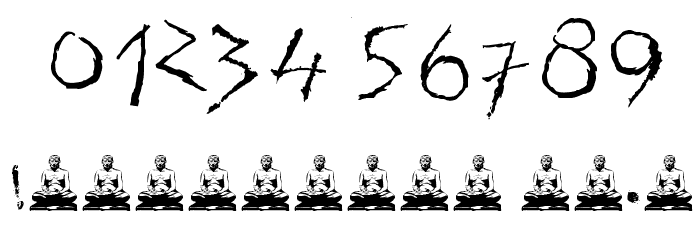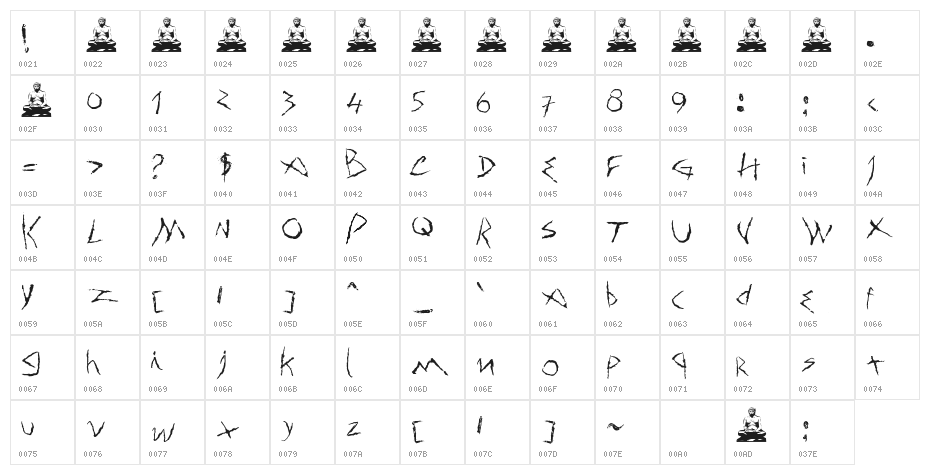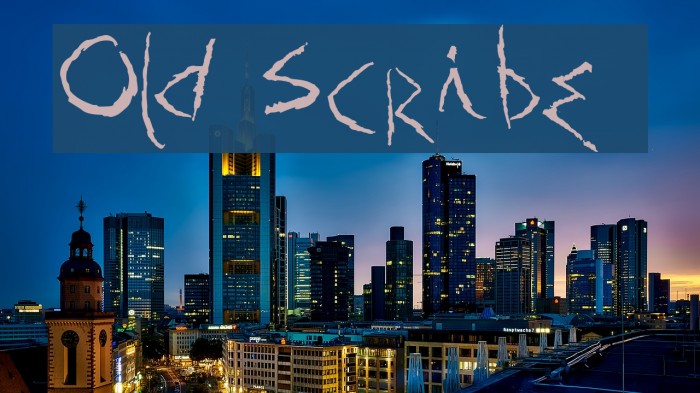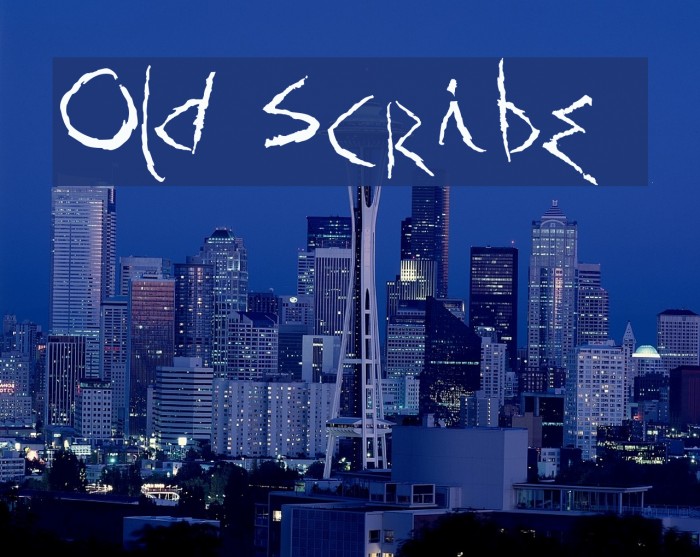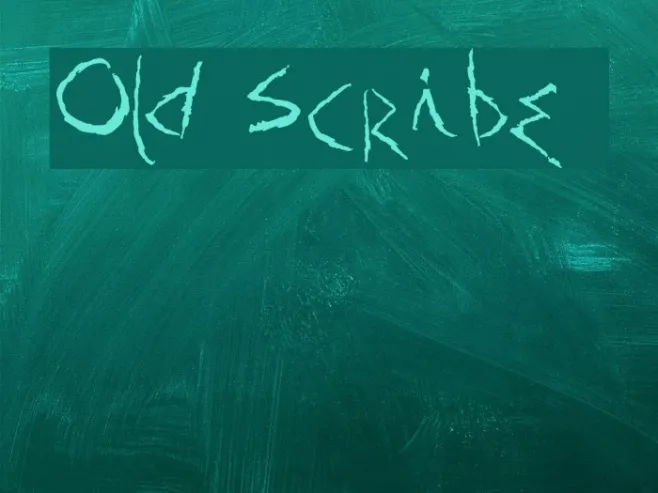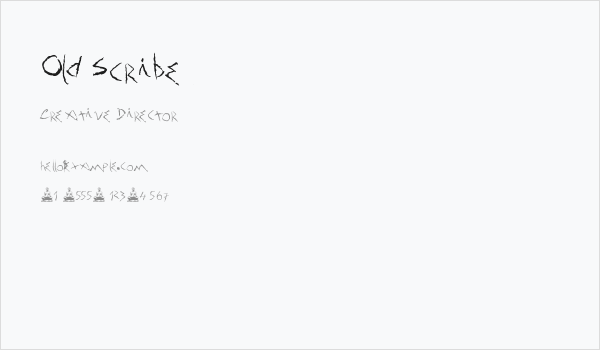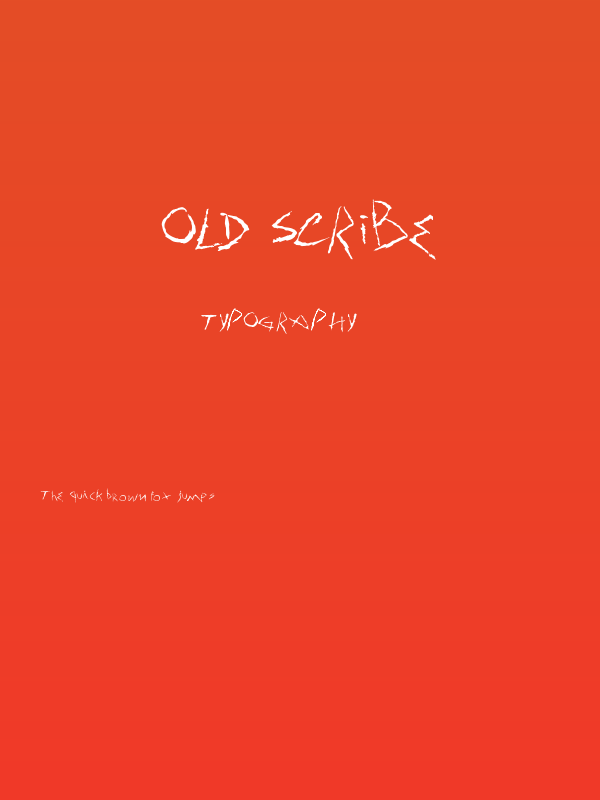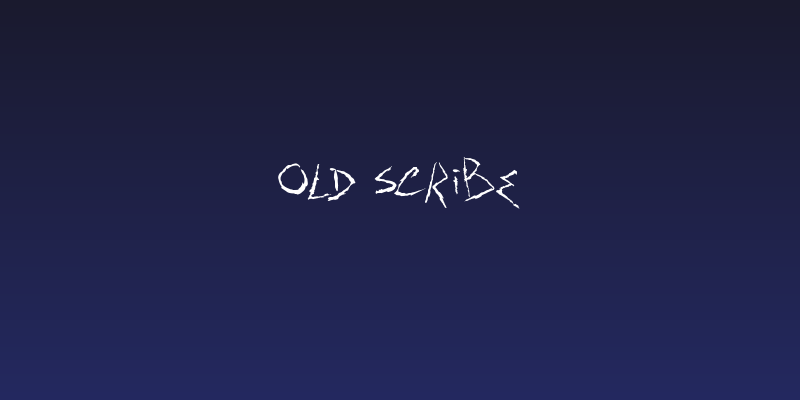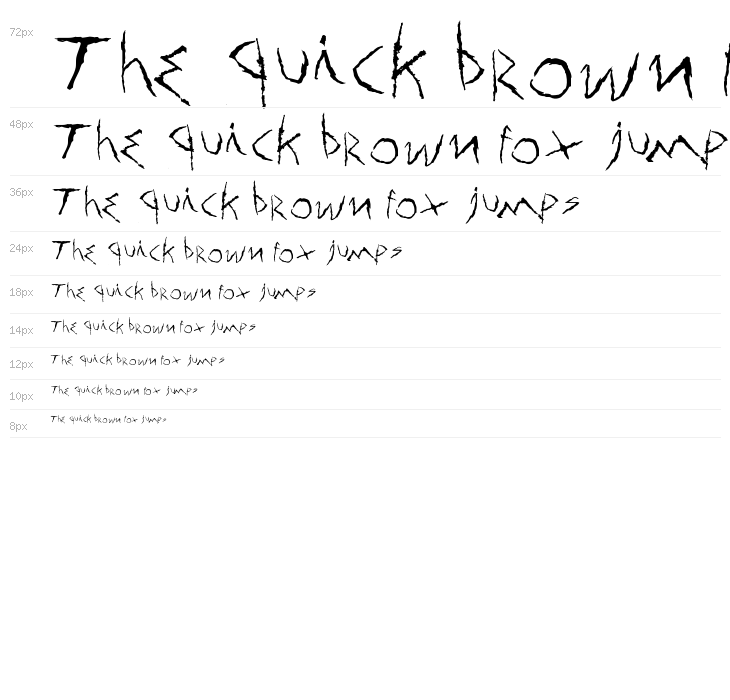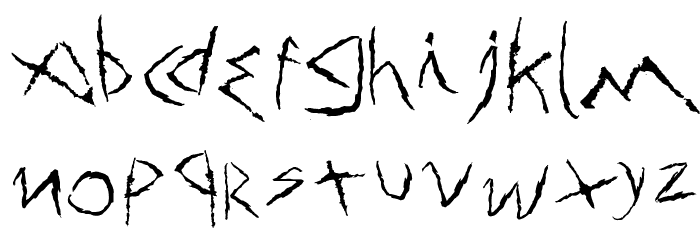
Old Scribe Font
Old Scribe Description
This font exudes a raw, hand-drawn aesthetic reminiscent of ancient scripts or calligraphy. The letters are uneven and jagged, giving a sense of urgency and expressiveness. The strokes vary in thickness, adding a dynamic and textured appearance. The overall style is chaotic yet artistic, making it ideal for projects that require a touch of historical or mystical flair. The numbers and special characters maintain the same rugged style, ensuring consistency across all text elements.
| Proposed Projects | Perfect for historical-themed posters, fantasy book covers, or any project needing an ancient or mystical touch. |